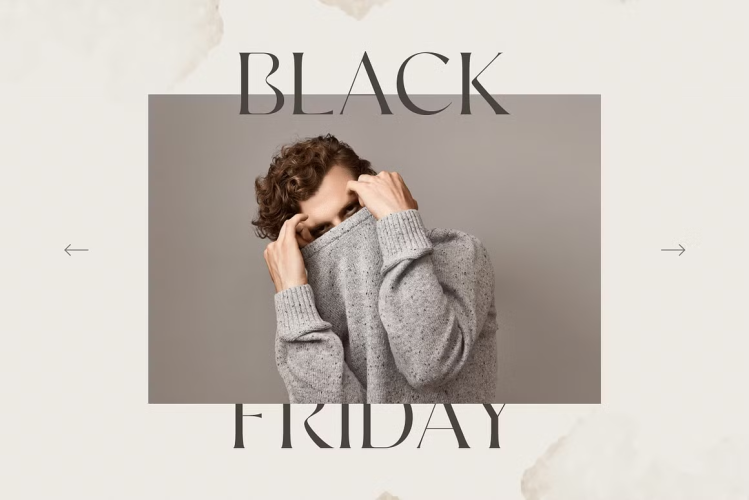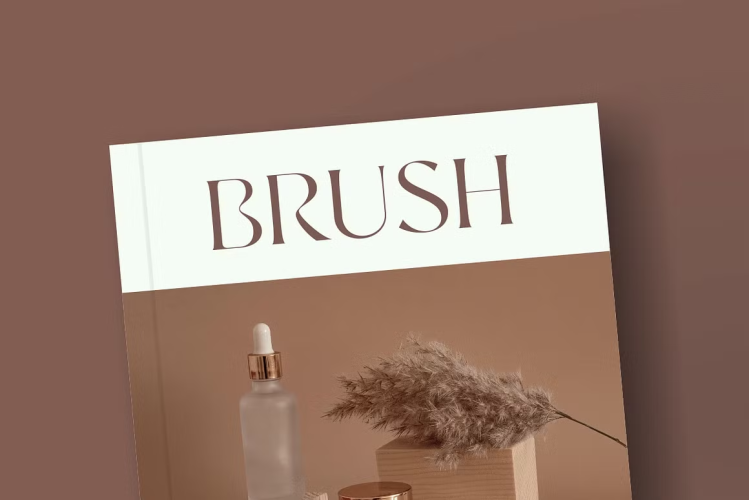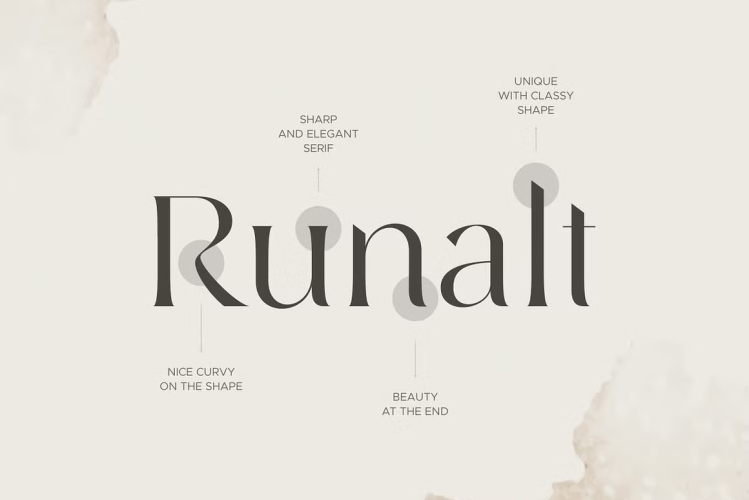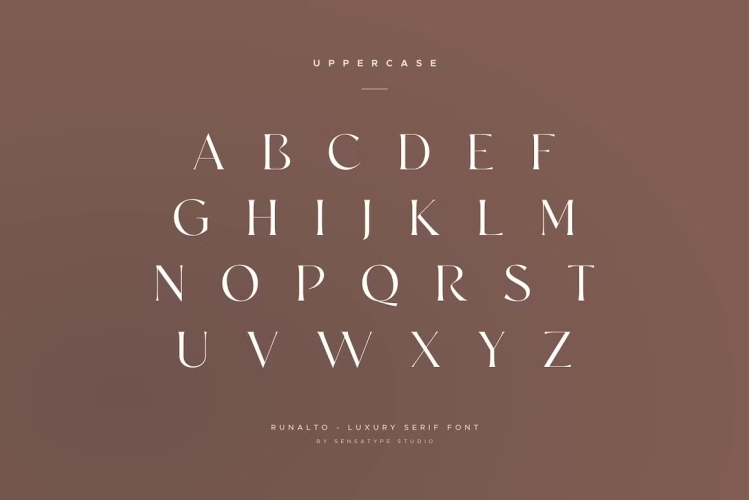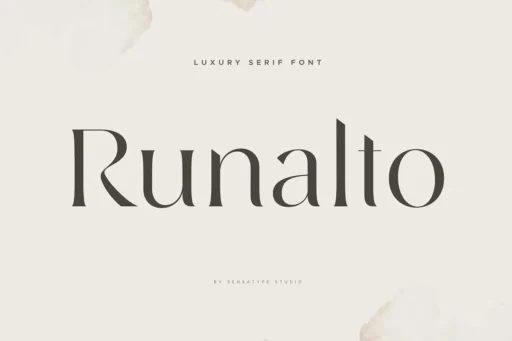
Runalto Font
Runalto is a display serif font by Sensatype that embodies elegance, sophistication, and modernity. Because of its elegant design, Runalto is perfect for luxury projects and designers who want to incorporate a bit of elegance in their designs.
Runalto has a simple and stylish serif look with delicate serifs, which give it a classic and timeless appeal. The font comprises upper and lower case letters, numbers, punctuation marks and symbols. Also, special ligatures create smooth transitions between letters and give the design a fashionable and personal look. These characteristics, in combination, create the impression of sophistication, and therefore, Runalto is ideal for upscale projects.
The combination of the fluid shapes and the more serious, non-round letters gives it a nice symbiosis, which works well in upscale projects. It works effectively in both the digital and print media and is a great asset to any designer who wants to give their work that touch of elegance.
Runalto font is an ideal font to use in different design projects such as magazines, social media posts, branding projects, logos and much more. It has a rather fragile appearance and matches well with the editorial content, which makes it suitable for both online and print mediums without diminishing the aesthetics. This versatility makes it possible for designers to incorporate some elegance into their designs and can consider Runalto as an essential tool that can be used in their designs.
Runalto Font is a Serif Fonts font that brings a professional and versatile look to your projects. Runalto is a display serif font by Sensatype that embodies elegance, sophistication, and modernity.